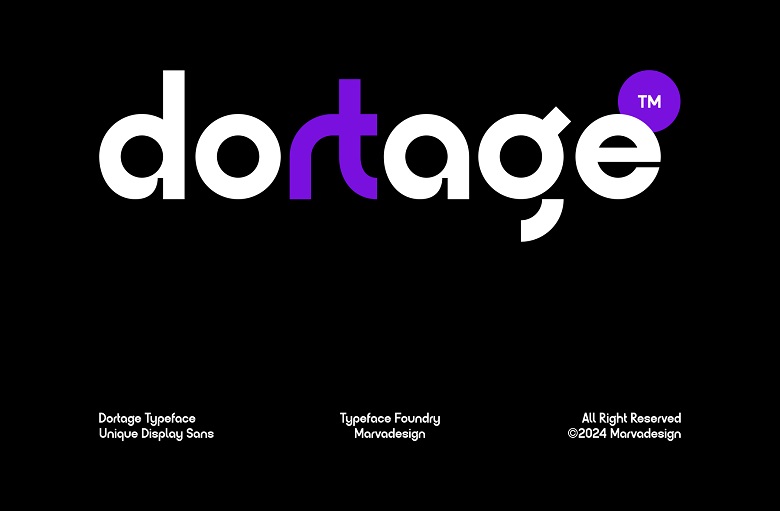
Dortage Font
Introducing Dortage is a minimalist sans display font that is perfect for creating stunning simple, contemporary designs. Being thin and unobtrusive, it is ideal for logotypes, branding, posters, and magazines layouts. The thin lines of the characters and the perfect harmony of the proportions make Dortage very easy to read through, while not losing the sense of chic and modernity.
It’s clear that this font is highly versatile and works well in a range of contexts but is particularly well-suited to projects where an air of professionalism is necessary.
Dortage Sans Serif Font